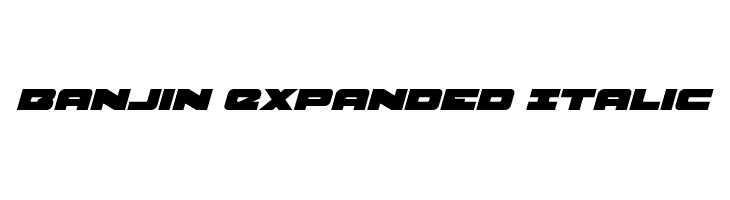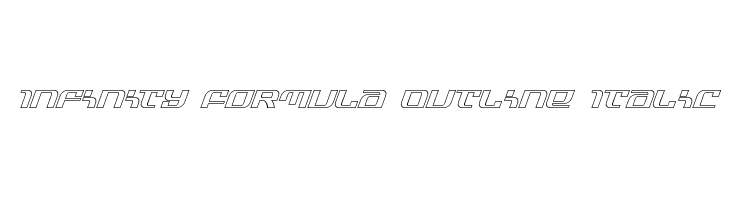
A bold, 3D italic font with a futuristic and dynamic style.
A bold, futuristic font with geometric, tech-inspired design.
A bold, expanded, and italic font with a futuristic and dynamic style.
A dot matrix style font with a retro digital display aesthetic.
A bold, geometric font with a futuristic, stencil-like design.
A bold, italicized font with a halftone effect, ideal for modern and dynamic designs.
A digital watch-inspired font with characters formed by dots within watch-shaped frames.
A modern, tech-inspired font with characters in digital watch outlines, featuring an italic style.
A modern, digital watch-inspired font with italicized, segmented characters.
A futuristic, italicized outline font with angular, geometric letterforms.